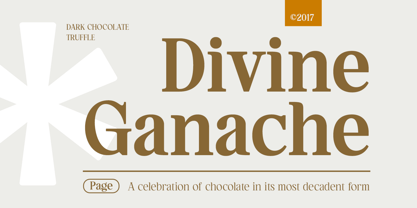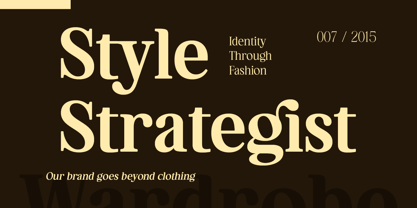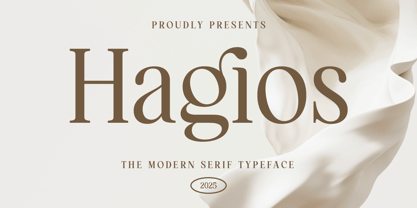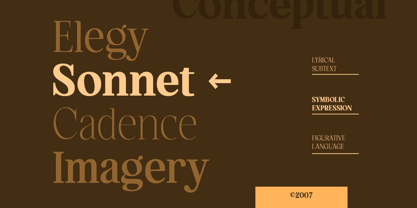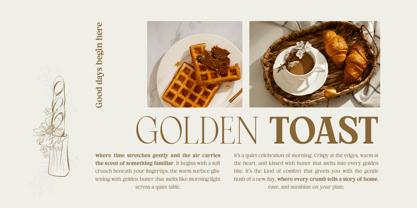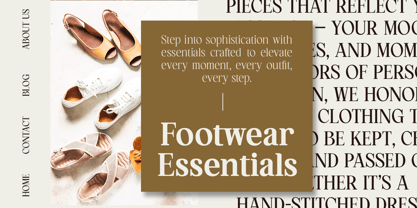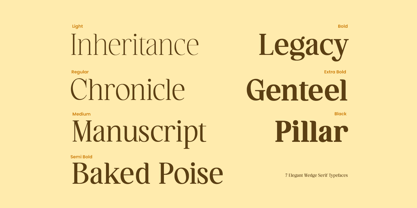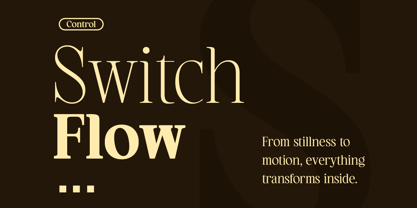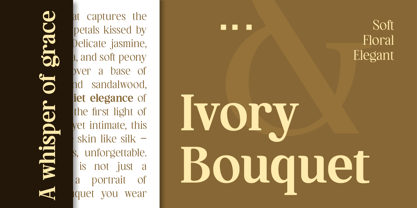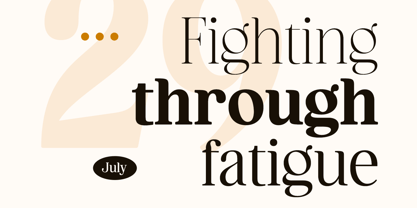
Hagios
by DGtype
The Hagios Font Family was designed by Ahmad Ramzi Fahruddin and published by DGtype. Hagios contains 7 styles and family package options. More about this family
Hagios is a modern serif font infused with a timeless classic touch. Featuring 7 versatile weights from Light to Black, it’s a reliable choice for all your creative design needs. Its refined contrast and elegant structure make every layout more captivating and sophisticated.
Perfect for posters, editorials, fashion branding, logos, labels, newspapers, weddings, invitations, titles, books, magazines, and more. With full multilingual support, Hagios is ready to speak your brand’s language — loud and clear.